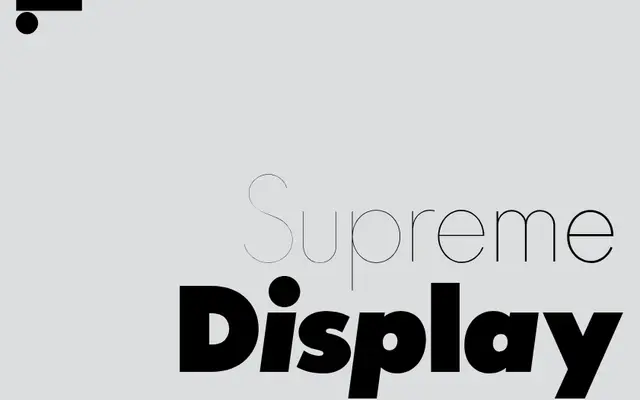
LL Supreme Display
Lineto · Arve Båtevik · 2020
LL Supreme Display specimen from Lineto
A display extension of LL Supreme that pushes Futura's geometric logic into extreme weights, including a variable hairline cut engineered to render at a single stroke unit across every platform.
Where the base LL Supreme family reframes Futura through rigorous digital geometry, the Display extensions stretch that logic to its limits. LL Supreme Jumbo and Choupette cover territory no Bauer or Neufville release ever did, from weights heavier than any official Futura cut to Choupette VIP, a variable font with 20 instances ranging from one stroke unit upward. Variable font technology was used to solve rendering problems at extreme thinness, making this one of the more technically ambitious type releases of recent years.
A display-focused geometric sans derived from Futura's underlying principles, extending into ultra-heavy and ultra-thin variable weights that push well beyond conventional type ranges, classifying it firmly as display rather than text use.
Choupette VIP (variable, 1–20 units)JumboExtra Black
LL Supreme JumboLL Supreme Choupette